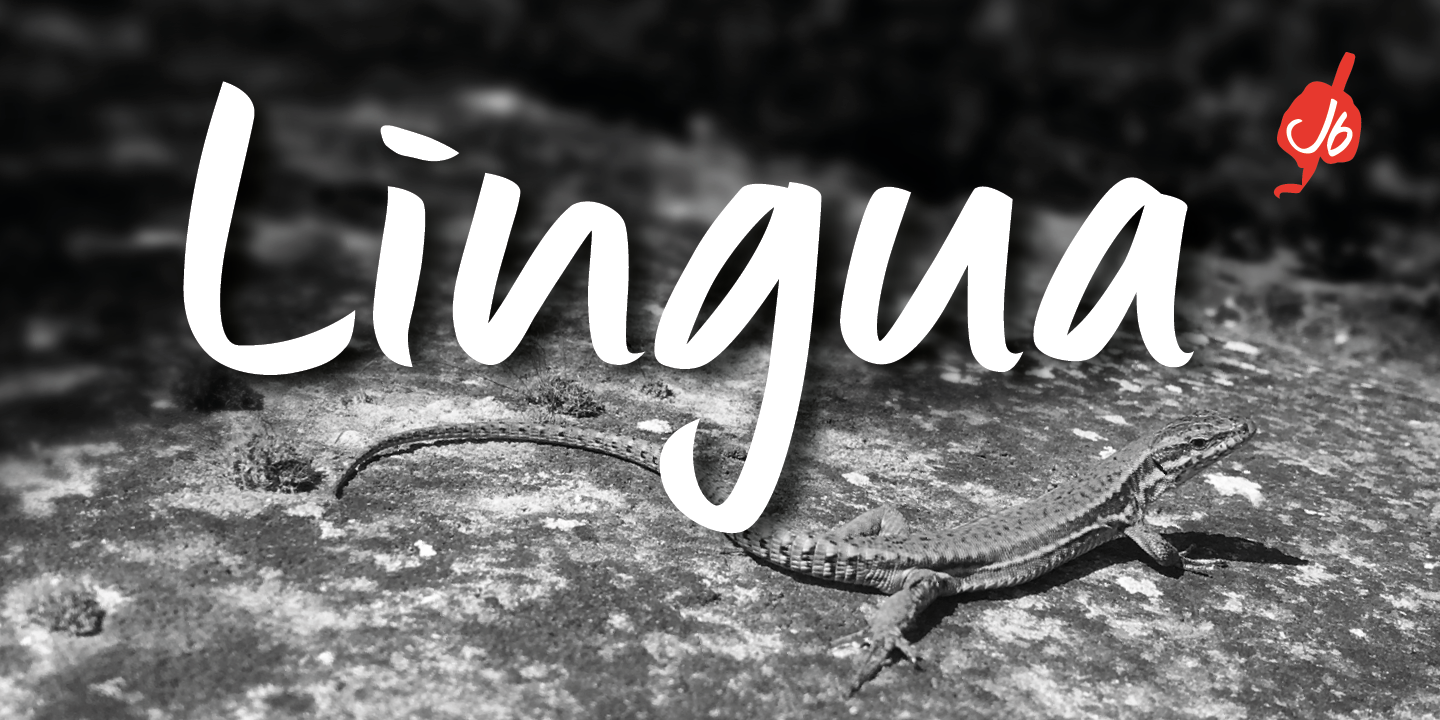
Lingua Font is perfect for multilingual projects including international publications, language learning materials, educational textbooks, academic journals, translation services branding, cultural organization materials, linguistic research papers, and global communication designs. This versatile typeface brings clarity and cultural sensitivity to any design project.
What makes Lingua Font exciting is its exceptional multilingual capabilities and cultural awareness built into every character. The carefully designed letterforms maintain consistent readability across diverse languages while respecting the unique characteristics of different writing systems. This font delivers outstanding performance for global communications, ensuring that every language appears with equal clarity and dignity.
The Lingua Font family typically includes multiple weights from light to bold with corresponding italic styles, extensive character sets covering Latin, Cyrillic, and extended Unicode ranges. The complete family features comprehensive language support including accented characters, special symbols, and diacritical marks. Advanced versions often include stylistic alternates optimized for specific linguistic requirements and regional typography preferences.
Whether you're designing for international organizations, educational institutions, or multicultural brands, Lingua Font Free Download delivers the universal accessibility that connects diverse audiences. Its exceptional versatility makes it ideal for both large display applications and extended multilingual text. The font's inclusive design ensures optimal legibility across all supported languages, making it an essential tool for designers creating truly global communications that respect and celebrate linguistic diversity.